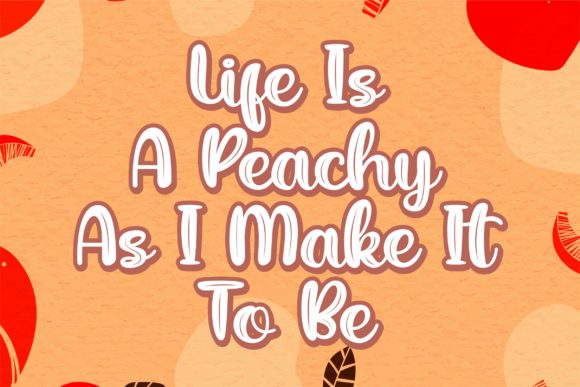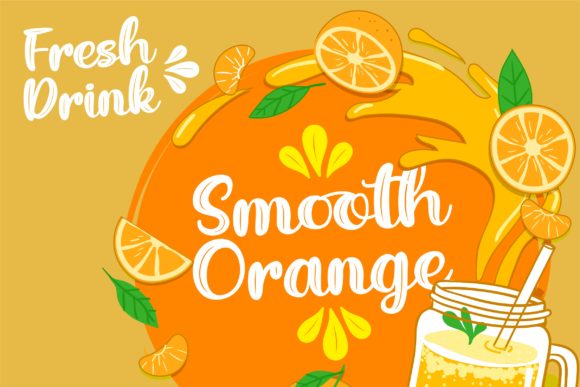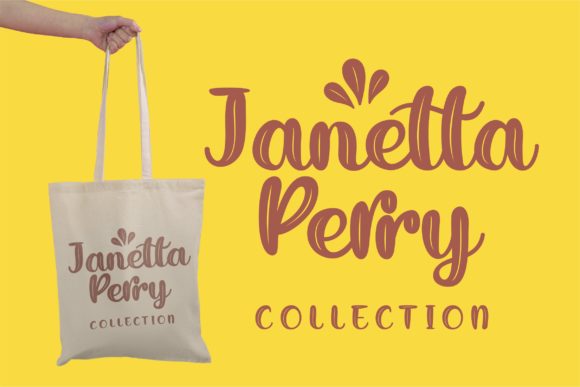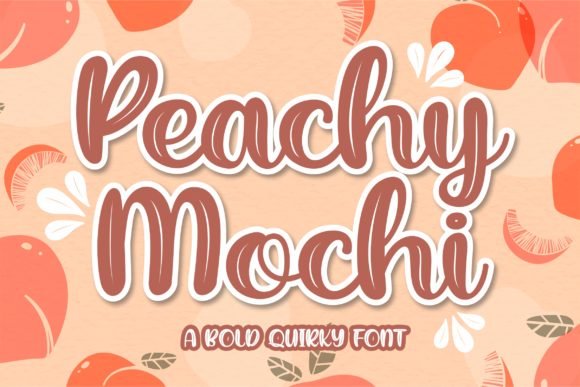
Introduction to Peachy Mochi Font
Peachy Mochy is a bold and cute display font.
This font is the perfect fit for all of your logos, branding, social media, and crafty DIY projects .
Peachy Mochi Font offers exceptional quality and versatility, making it a valuable addition to your design toolkit. Whether you’re creating for personal projects or commercial use, Peachy Mochi Font delivers professional results.